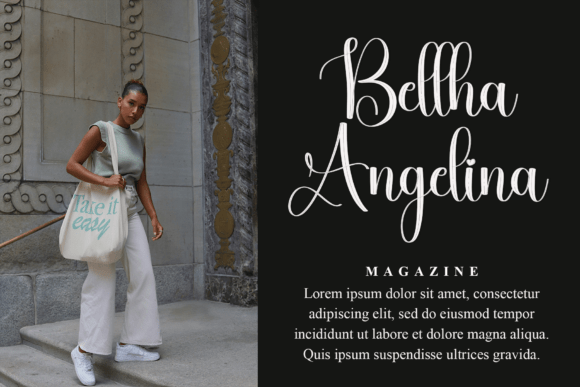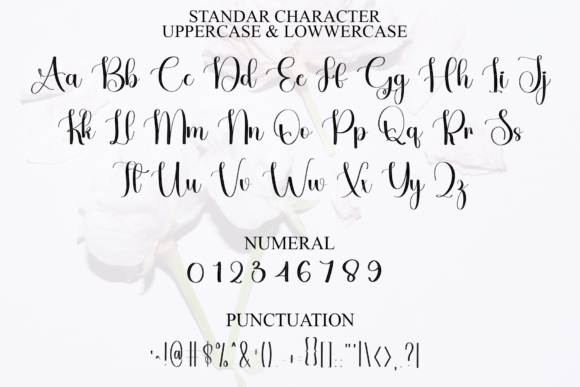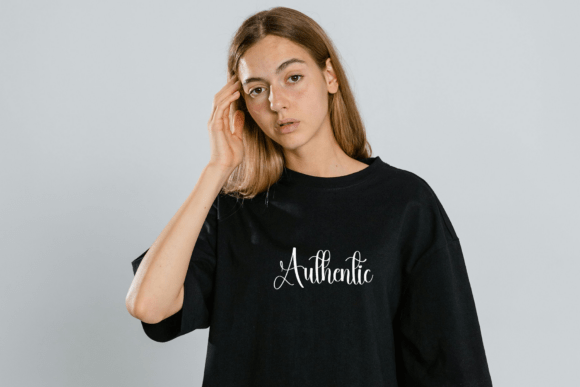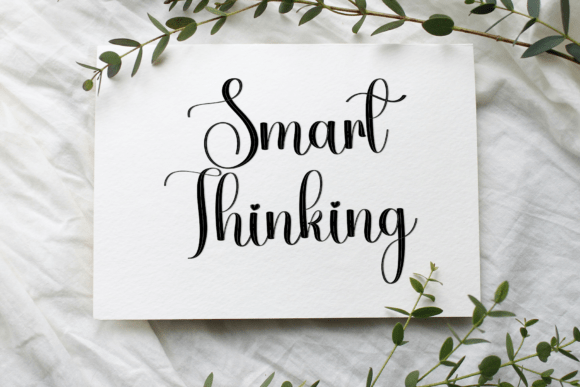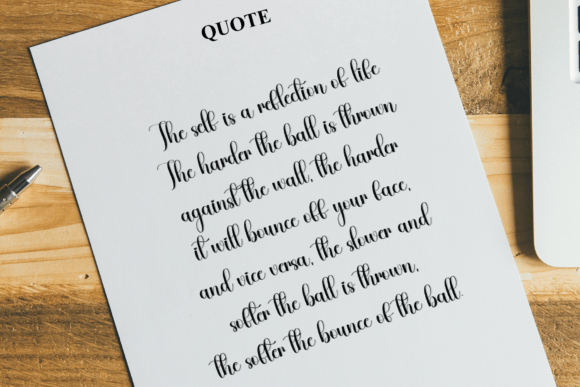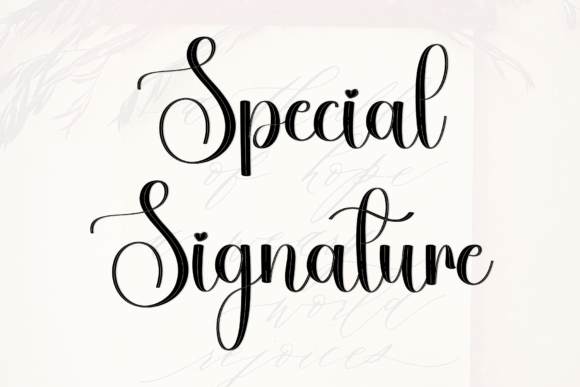
Introducing Angelia Signature Font: The Perfect Blend of Creativity and Friendliness
Are you a designer, crafter, or DIY enthusiast looking for a font that can add a personal touch to your projects? Look no further than Angelia Signature Font, a casual and creative font that exudes warmth and friendliness. With its round, playful strokes, this font creates a relaxed and approachable feel that’s perfect for personal projects, invitations, and social media graphics.
The Charm of Hand-Drawn Aesthetic
Angelia Signature Font boasts a charming, hand-drawn aesthetic that adds a fun and unique touch to any design. The font’s playful strokes and rounded edges create a sense of warmth and approachability, making it ideal for designs that require a personal and friendly feel. Whether you’re creating invitations, social media graphics, or personal projects, Angelia Signature Font is the perfect choice.
Key Features of Angelia Signature Font
- Casual and Creative: Angelia Signature Font is designed to be casual and creative, making it perfect for personal projects and DIY designs.
- Warm and Friendly: The font’s round, playful strokes create a warm and friendly feel that’s perfect for invitations, social media graphics, and personal projects.
- Hand-Drawn Aesthetic: The font’s charming, hand-drawn aesthetic adds a fun and unique touch to any design.
Design Ideas with Angelia Signature Font
Angelia Signature Font is perfect for a variety of design projects, including:
- Invitations: Create personalized invitations for special occasions such as weddings, birthdays, and baby showers.
- Social Media Graphics: Use Angelia Signature Font to create engaging social media graphics that showcase your personality and brand.
- Personal Projects: Add a personal touch to your personal projects such as scrapbooking, journaling, and crafting.
- Branding: Use Angelia Signature Font to create a unique and memorable brand identity.
Angelia Signature Font is a versatile and creative font that’s perfect for designers, crafters, and DIY enthusiasts. With its charming, hand-drawn aesthetic and warm, friendly feel, this font is ideal for personal projects, invitations, and social media graphics. The font’s compatibility with various design software and applications makes it easy to incorporate into your workflow. So why wait? Get your hands on Angelia Signature Font today and add a personal touch to your designs!